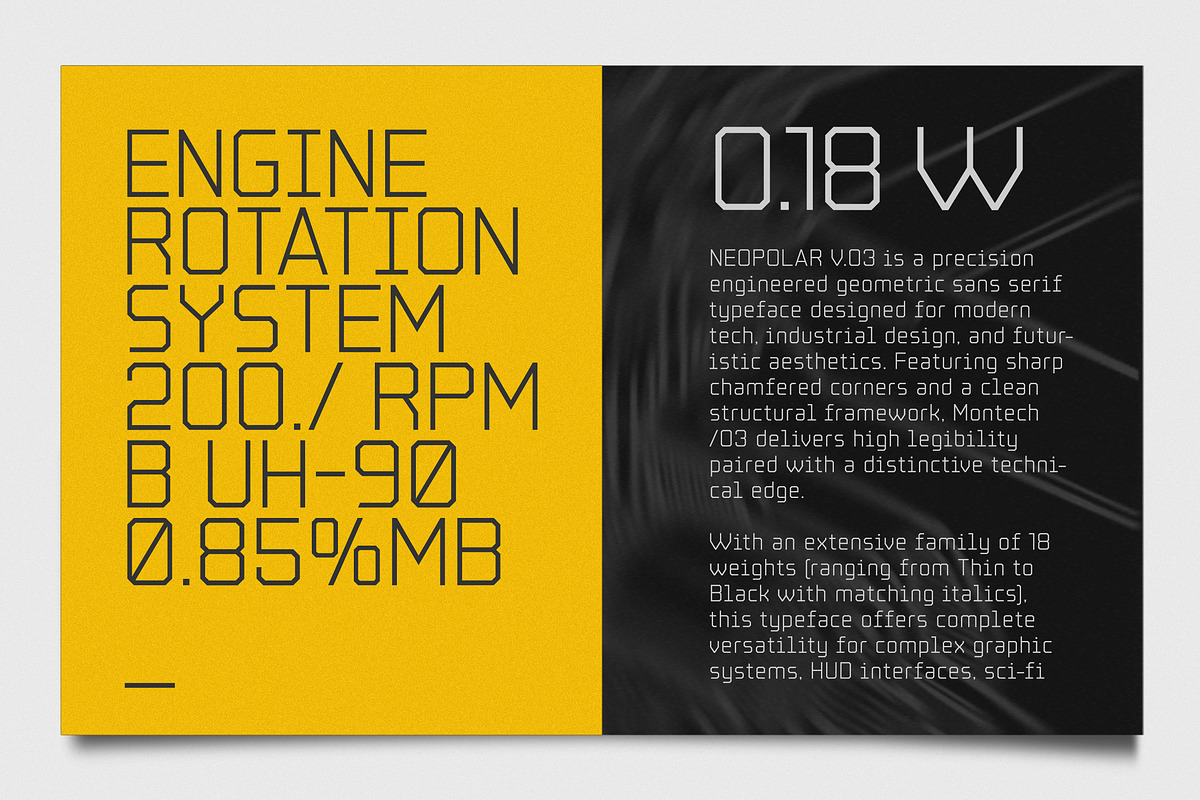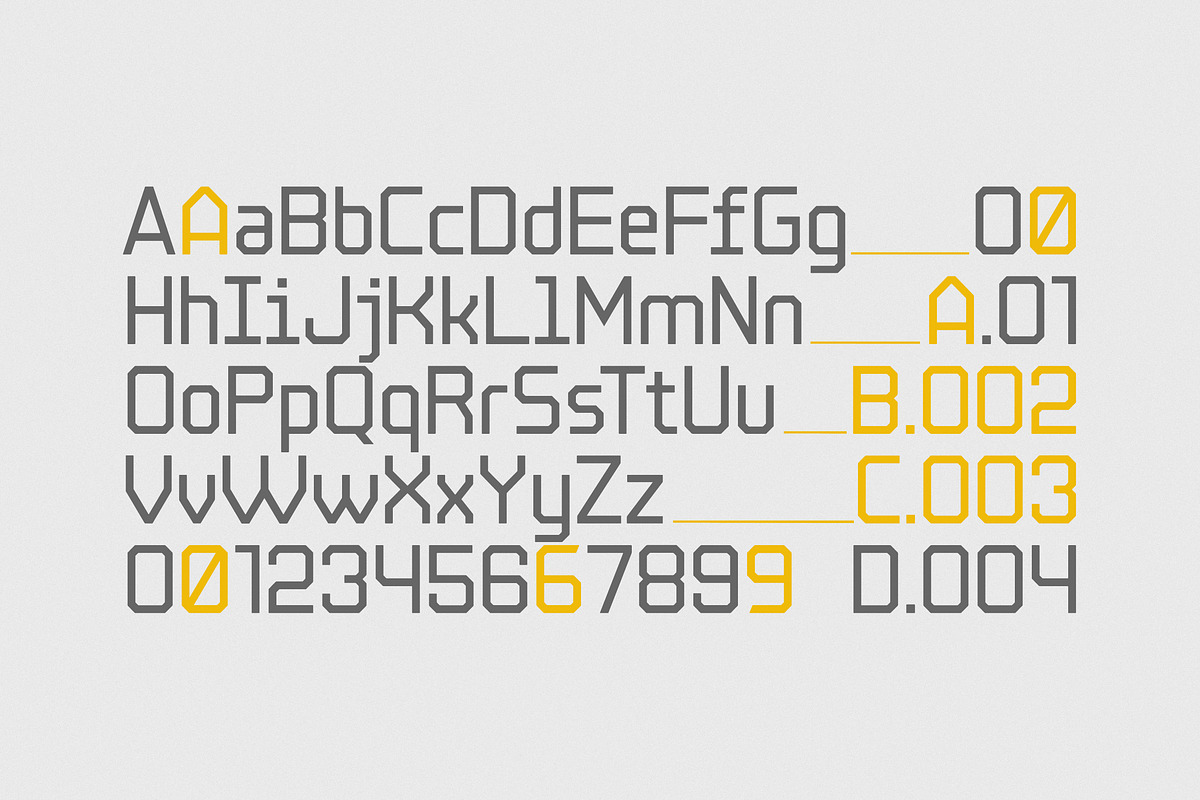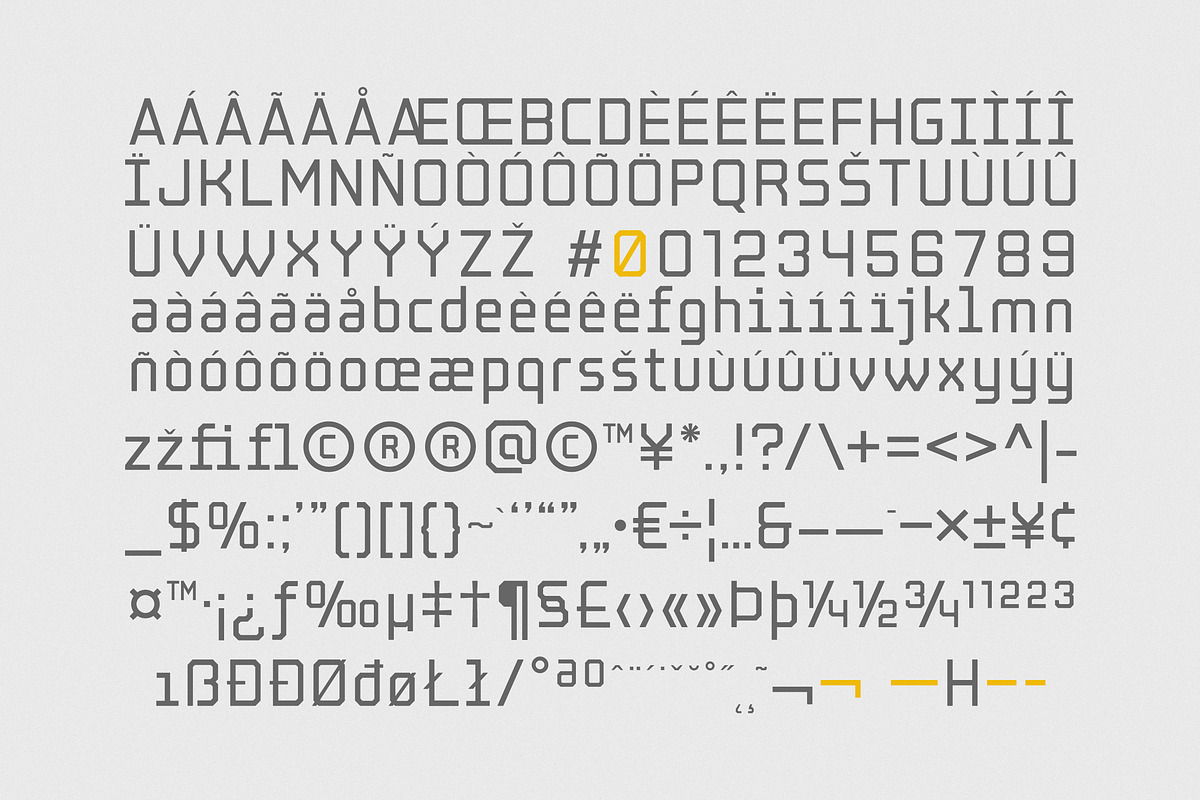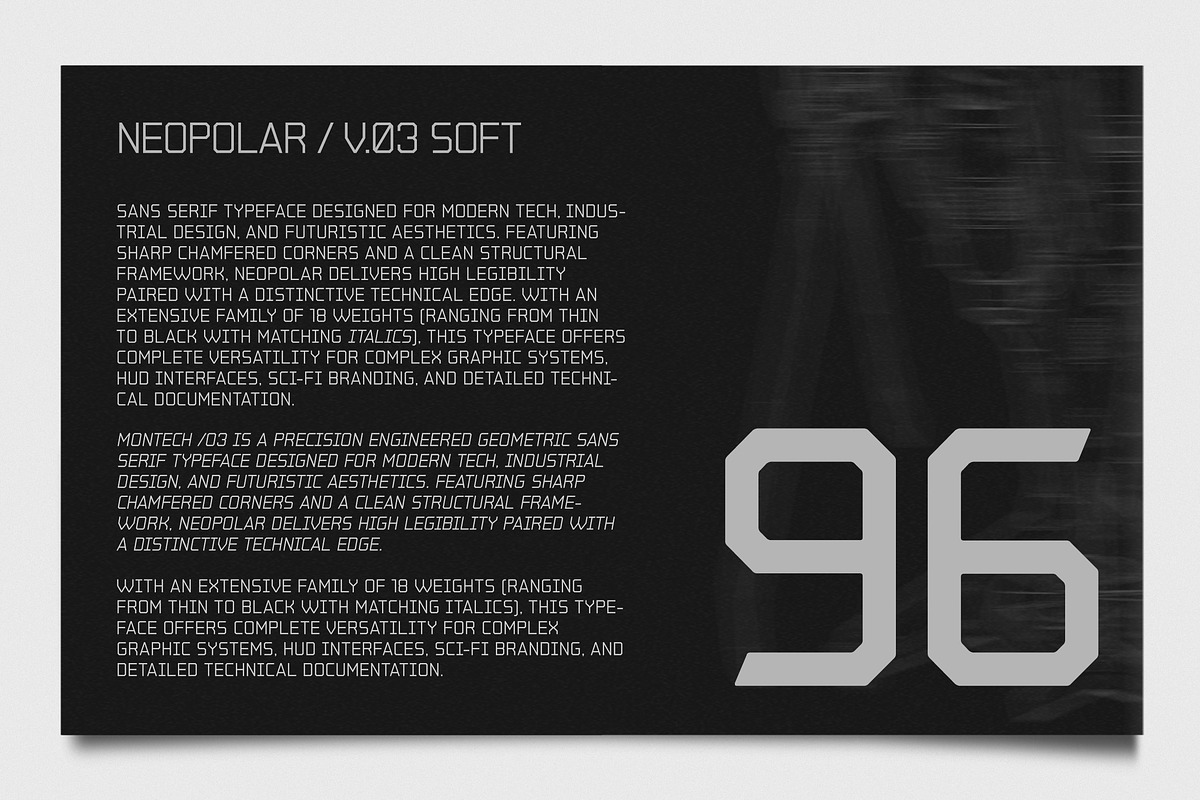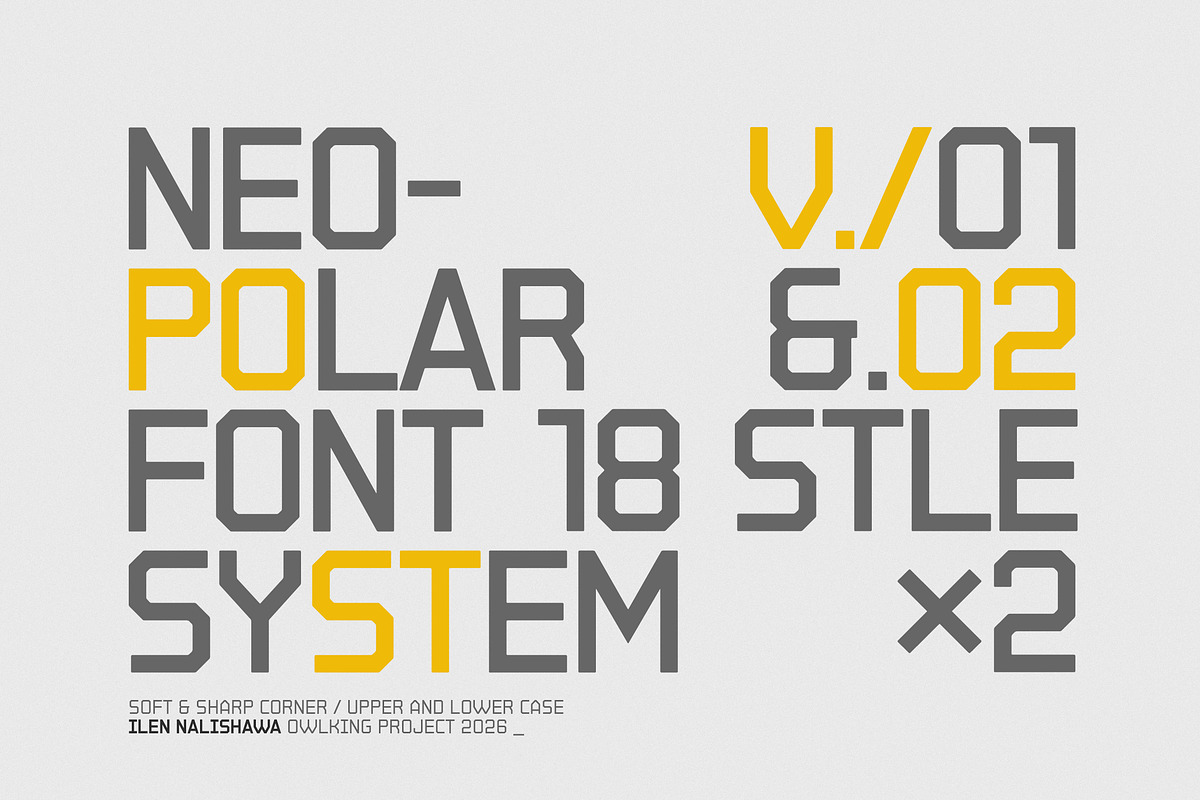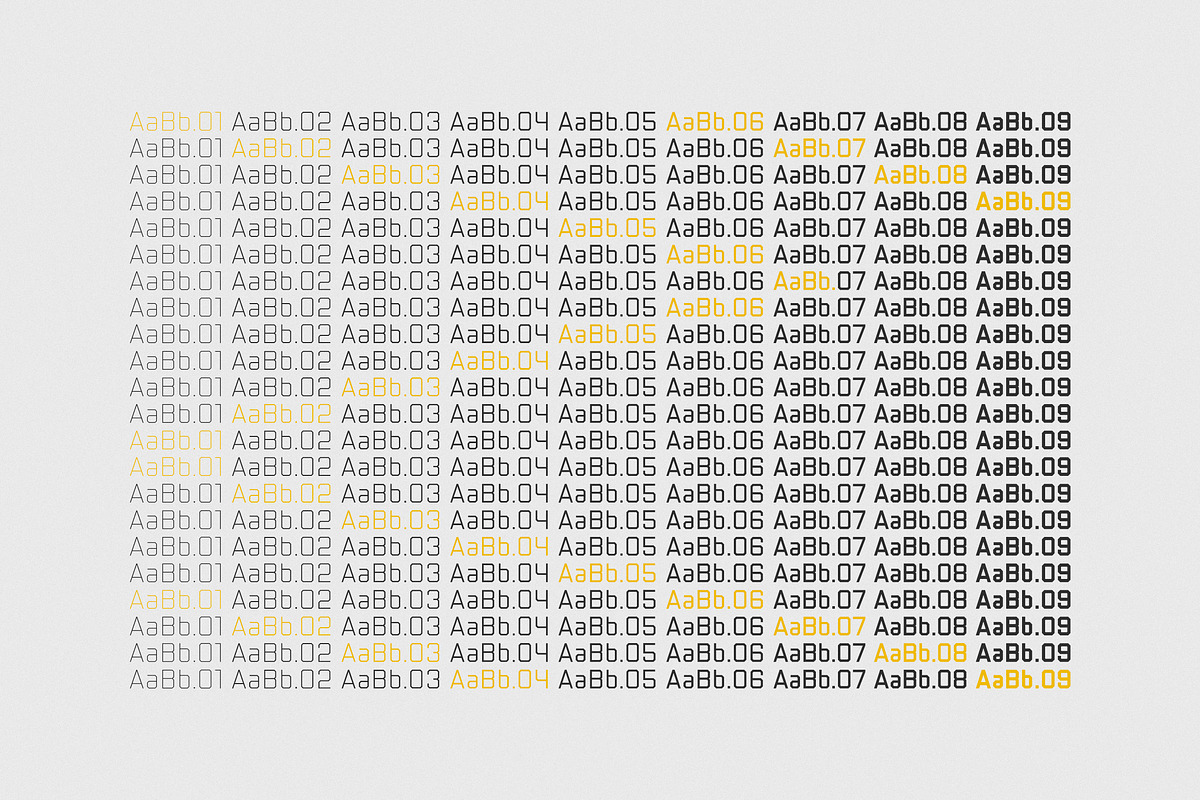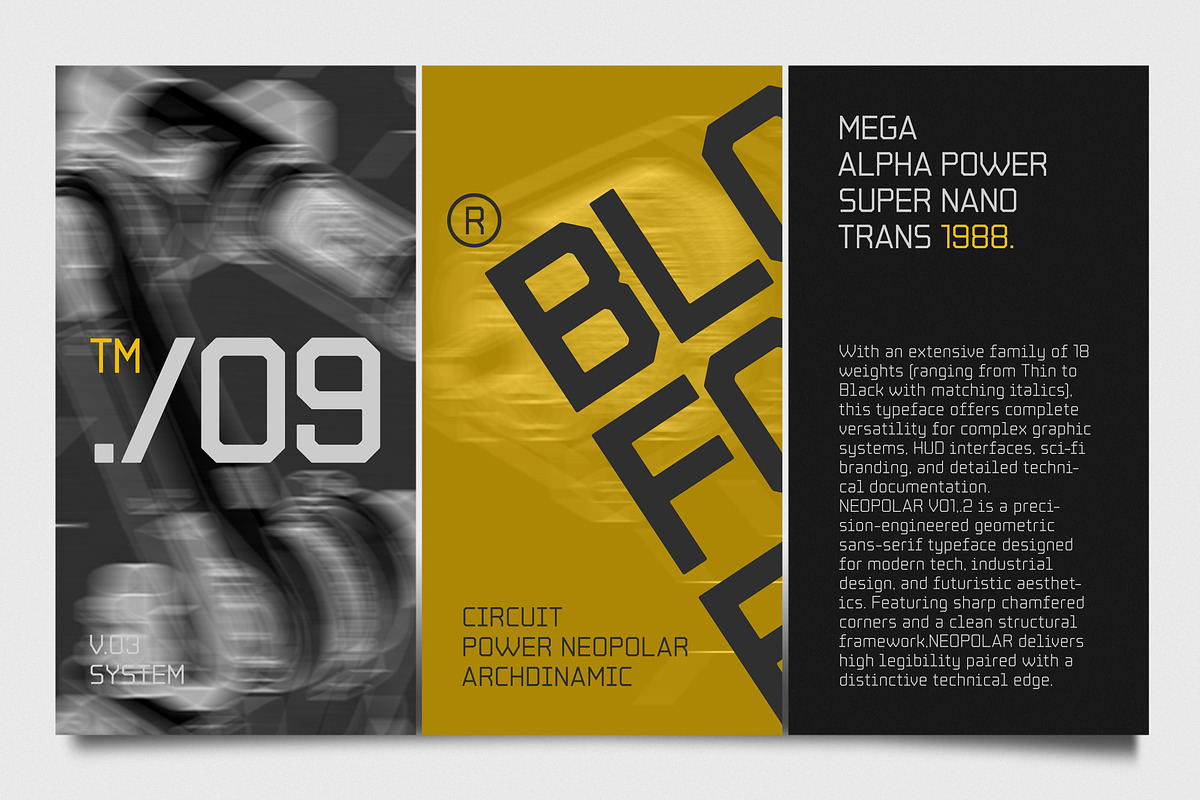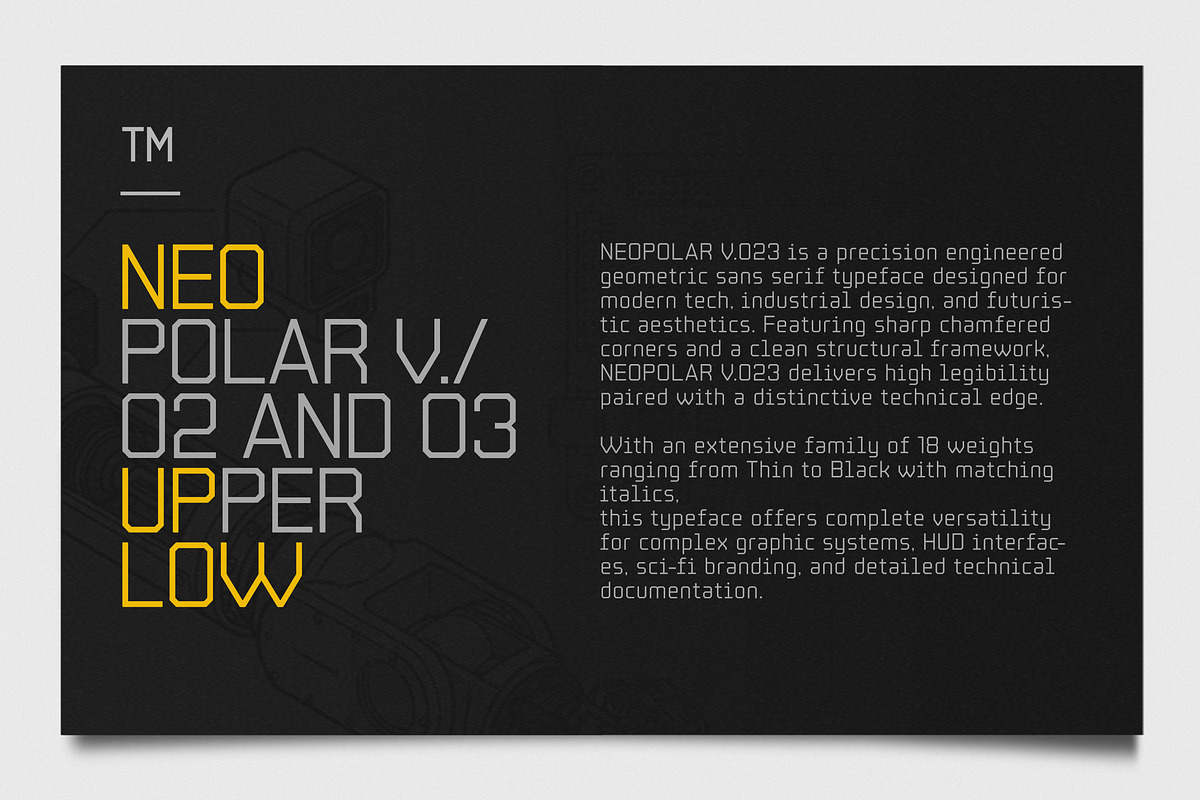
Neopolar
NEOPOLAR is a precision-engineered geometric sans-serif typeface designed for modern tech, industrial design, and futuristic aesthetics. Featuring sharp chamfered corners,
18 versatile weights available in 2 distinct style families, 36 Fonts Total (18 Sharp + 18 Soft Weights Thin to Black with Italics), and extensive language support, NEOPOLAR delivers exceptional legibility paired with a distinctive technical edge. Ideal for HUD interfaces, sci-fi branding, and complex graphic systems.